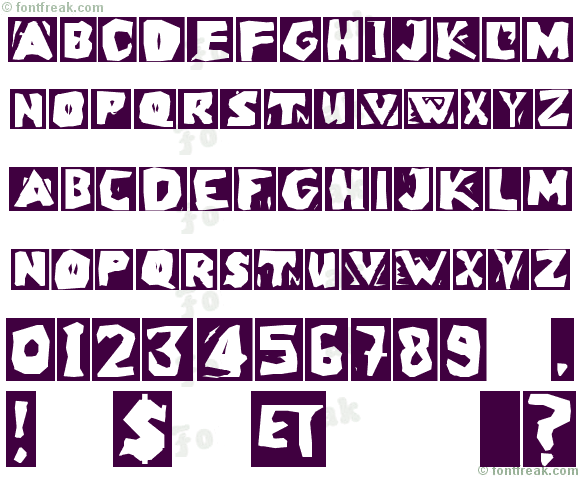
LinoLeumInvers
LinoLeumInvers, designed by Manfred Klein, is a captivating display font that falls into the decorative category. Its unique visual style features bold, irregular letterforms that evoke a playful yet artistic vibe. The font showcases a combination of thick and thin strokes, creating a striking contrast that draws attention. The spacing between the letters is intentionally varied, adding to its dynamic appearance and enhancing its overall character. This distinctive design is complemented by cut-out elements within the letterforms, giving the font a textured, linoleum-like quality that further emphasizes its creative flair.
Ideal for a variety of specific applications, LinoLeumInvers is perfect for eye-catching wedding invitations, where its whimsical nature can add a personal touch. Additionally, it works well for movie posters, particularly those in the indie genre, capturing a sense of originality and artistic expression. Restaurant menus can benefit from its bold presence, especially in casual dining settings, where a fun font can set the tone for the dining experience. Moreover, LinoLeumInvers is an excellent choice for promotional materials aimed at creative events or workshops, making it appealing to content creators and graphic designers alike.
The target audience for this font includes graphic designers seeking to add a unique touch to their projects, small business owners looking to differentiate their branding, and content creators who wish to convey a sense of playfulness in their work. The LinoLeumInvers font free download makes it accessible for anyone eager to experiment with its distinctive style.
What truly sets LinoLeumInvers apart is its ability to combine artistic flair with versatility, allowing it to shine in various contexts while remaining memorable and engaging. Whether for personal or professional use, this font invites creativity and individuality.